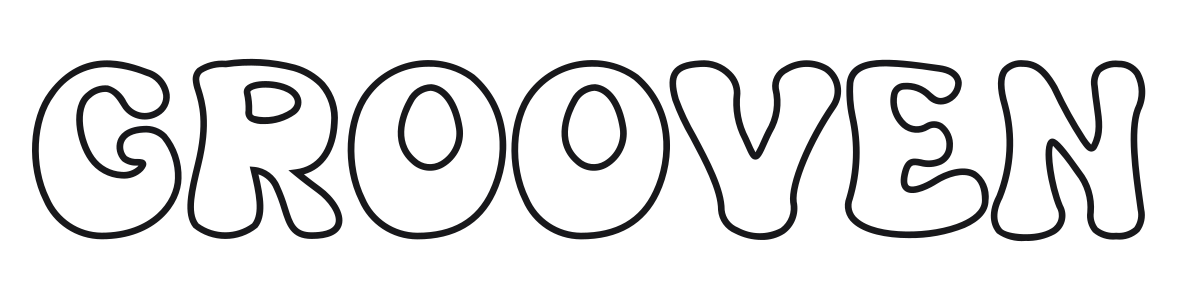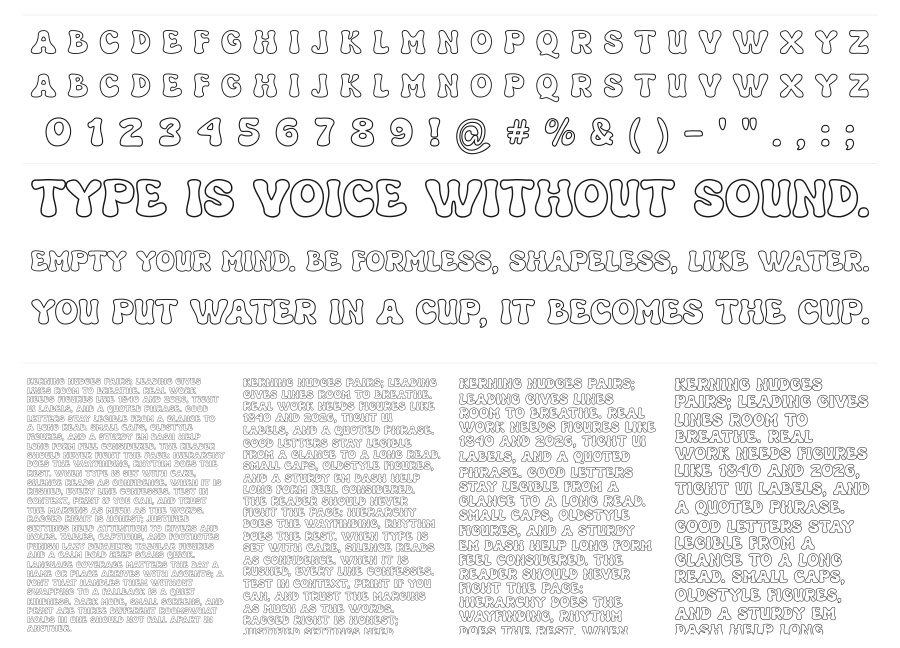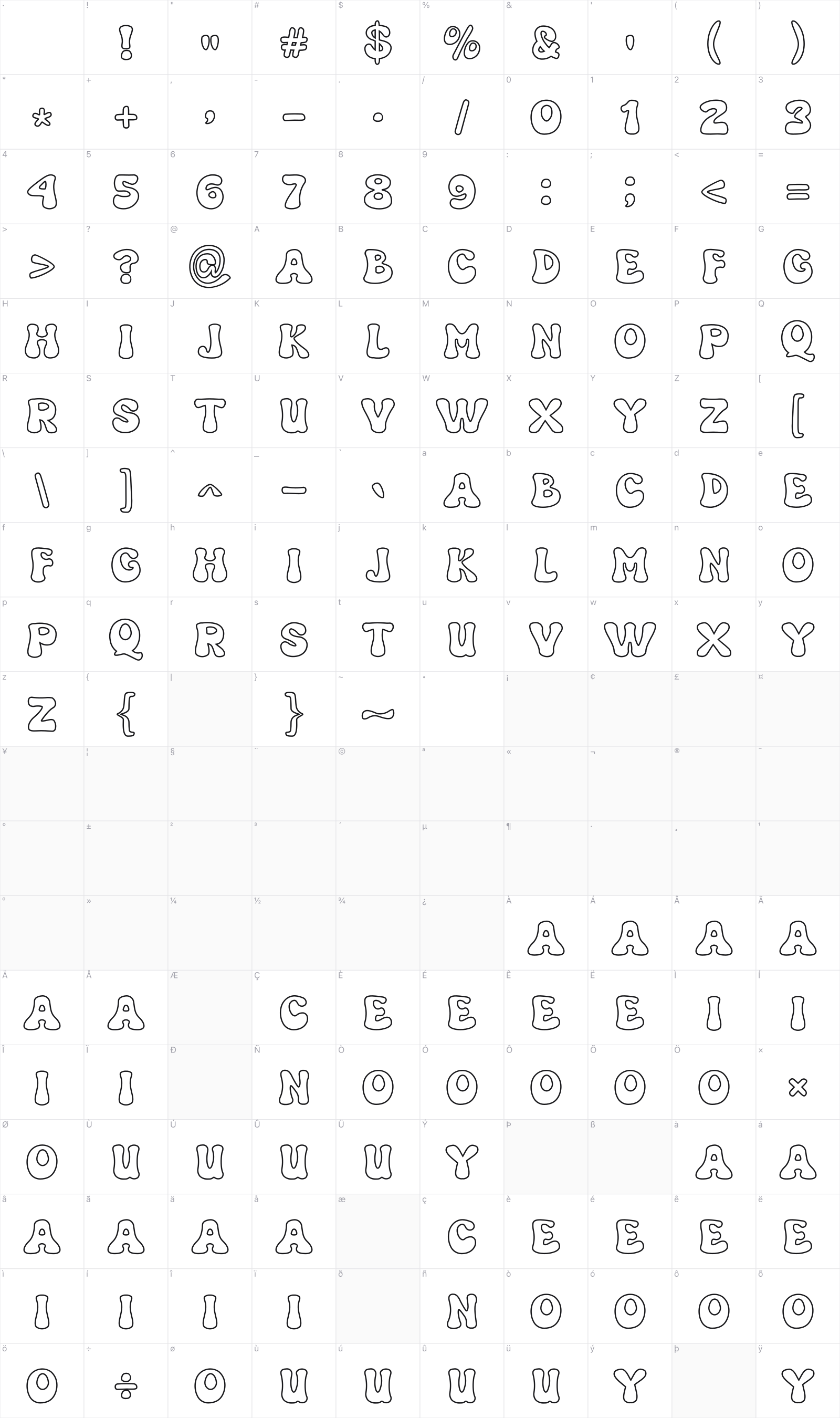
Grooven
Grooven is a retro bubble-outline display font with thick, inflated rounded characters drawn from 1970s groovy typography. Every stroke curves into its neighbor with barely a sharp angle in sight, giving the whole alphabet a soft, inflated energy. The outlined construction keeps it light enough for large headlines and posters without becoming a solid mass.